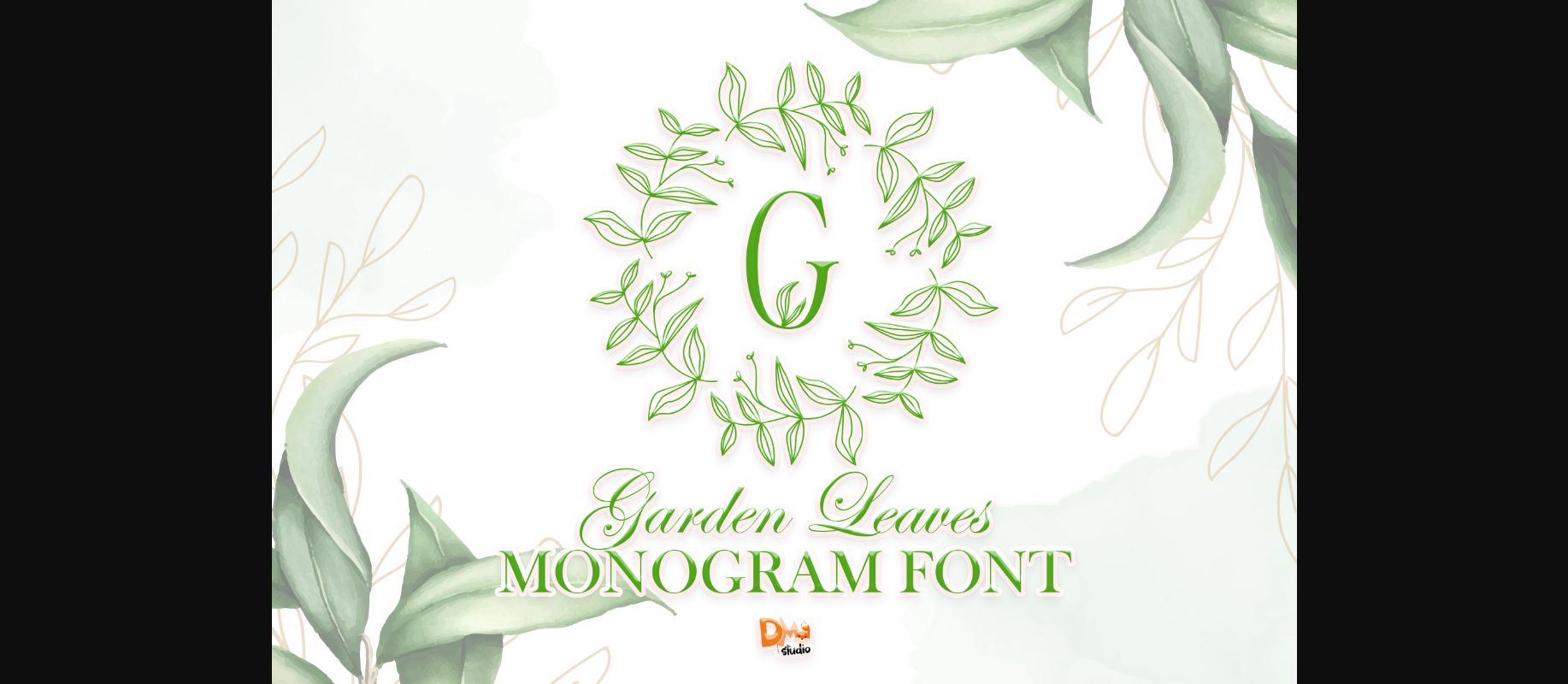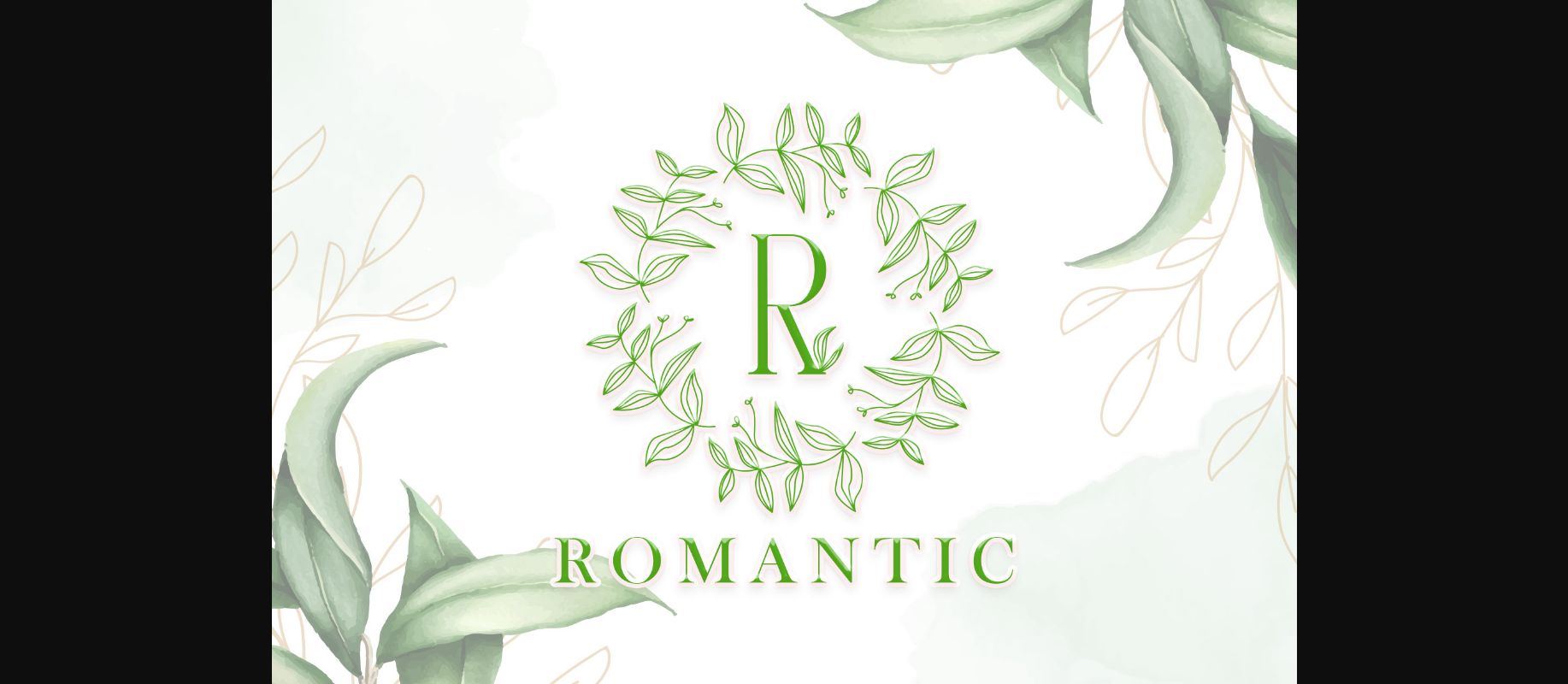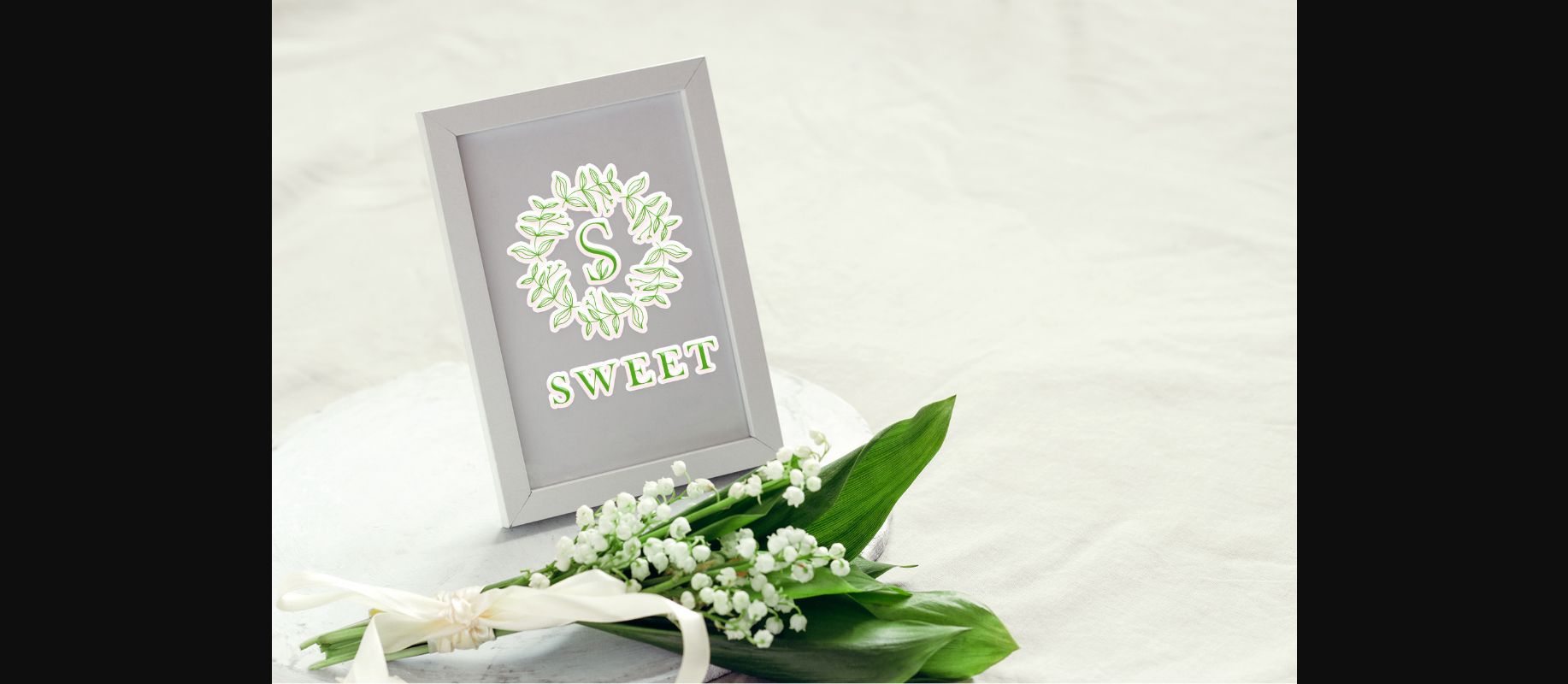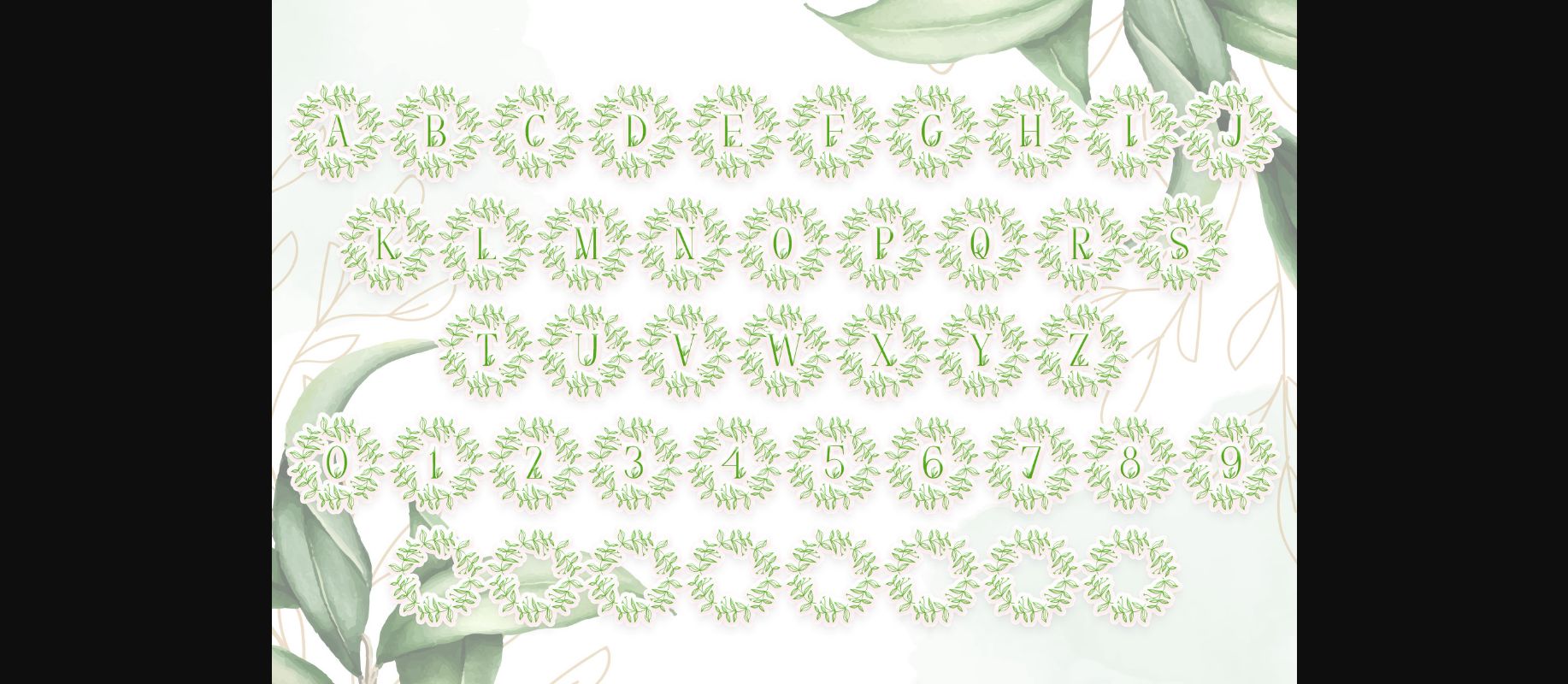
About Garden Leaves Monogram Font
Garden Leaves Monogram is a dainty and unique decorative font. Add this romantic and lovely looking font to each of your love letters, wedding invitations or favorite design ideas, and you will be astounded by the outcome.Â